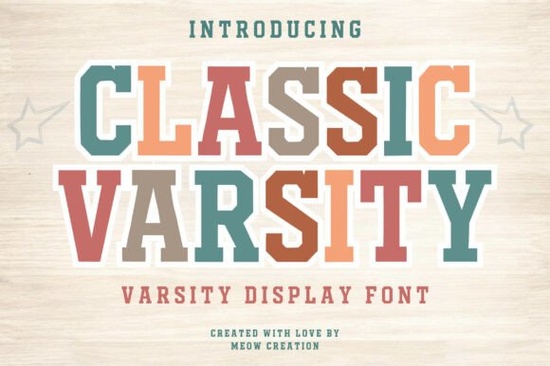
If you're designing anything with a retro sports or school spirit vibe, the Classic Varsity Font is worth a closer look. It’s modeled after vintage college lettering and athletic uniforms, featuring bold slab serifs and clean outlines that give your work instant credibility whether you’re printing team tees, creating event posters, or branding a small sports-related business.
This kind of display font works especially well when you need strong visual impact without clutter. Unlike overly ornate script fonts or ultra-modern sans-serifs, Classic Varsity strikes a balance between tradition and clarity. That makes it a reliable choice for creators who want their message to feel both nostalgic and professional.
What kinds of projects does Classic Varsity work best for?
You’ll find this font shines in contexts where energy, pride, and teamwork matter:
- T-shirt and hoodie designs for school clubs, local leagues, or fan gear
- Event banners and posters for homecoming, tournaments, or pep rallies
- Logo mockups for gyms, youth teams, or campus organizations
- Social media graphics that need a punchy headline with character
Because it’s built with clear spacing and consistent stroke weight, it scales well from small merch tags to large wall decals without losing legibility.
How does it compare to other athletic-style fonts?
Not all varsity-inspired fonts deliver the same authenticity. Some lean too cartoonish; others feel stiff or outdated. Classic Varsity avoids those pitfalls by keeping its structure grounded in real-world lettering traditions while offering modern file compatibility (OTF/TTF).
Is it easy to use for beginners?
One tip: avoid using it for long paragraphs. Like most display fonts, it’s meant for headlines, logos, or short phrases. Pair it with a clean sans-serif (like Helvetica or Arial) for body text to keep your layout balanced.
If you’ve been searching for a font that says “school pride” without looking like a clip-art cliché, Classic Varsity delivers substance with style and that’s why it remains a go-to for designers who value authenticity over flash.